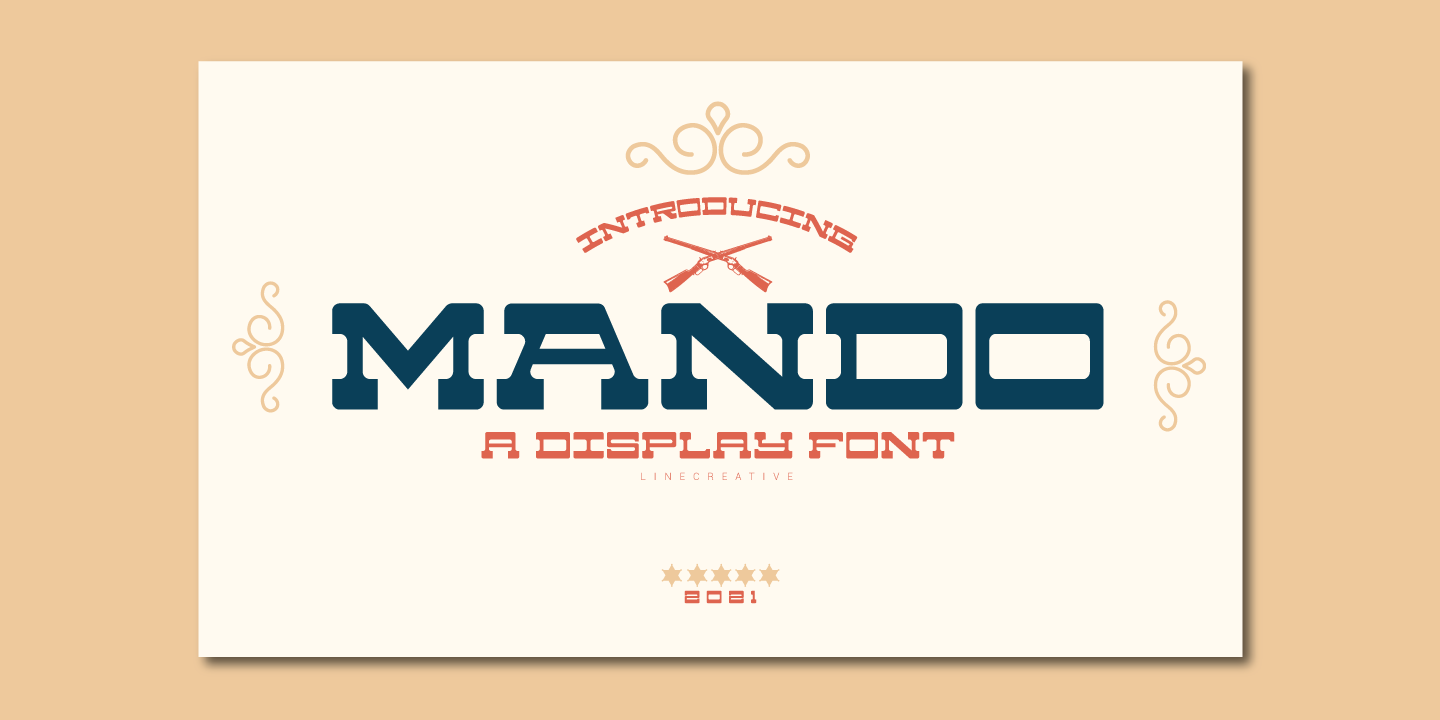
Mando Font is perfect for galactic entertainment branding, sci-fi gaming interfaces, space western movie titles, futuristic warrior merchandise, bounty hunter themed promotions, interstellar adventure marketing, mandalorian-inspired product packaging, cosmic battle game graphics, space opera storytelling materials, and epic sci-fi franchise communications.
What makes Mando Font so exciting is its extraordinary ability to capture the legendary warrior spirit and galactic frontier mystique through boldly armored letterforms that seem forged in the fires of distant star systems and tempered by the honor codes of ancient warrior clans who traverse the galaxy seeking justice and adventure. This font embodies the essence of spacefaring knights and nomadic warriors, featuring powerfully constructed characters that appear designed to withstand the harsh conditions of outer space battles while maintaining the distinctive cultural identity that defines the most respected warrior traditions. The armored letter shapes create an atmosphere of honor and legendary prowess, making every word feel like it carries the weight of galactic history and the authority of those who have earned their place among the galaxy's most feared and respected protectors.
The Mando Font family includes Light, Regular, Bold, Heavy, and Armored variations, along with galactic symbols and warrior decorative elements. Each style maintains the font's distinctive space warrior character while offering versatility for different sci-fi applications, from subtle galactic communication text to commanding battle cry headlines that announce the arrival of legendary bounty hunters and space-faring warriors.
This legendary typeface brings authentic space western aesthetics to contemporary design projects. The Mando Font Free Download provides designers with an exceptional tool to create memorable brand identities that communicate strength, honor, and galactic adventure. Whether you're developing sci-fi entertainment branding, designing space warrior gaming materials, or creating futuristic frontier communications, this font delivers unmatched intensity and cosmic authenticity.
The masterfully crafted letterforms in Mando Font feature angular armor plating and warrior-inspired structures that ensure maximum impact while expressing the disciplined code and professional expertise that separate legendary warriors from ordinary space travelers. Each character has been designed to maintain excellent readability while conveying the unwavering determination and tactical precision that define the galaxy's most elite protectors. The font's distinctive personality makes it ideal for applications requiring genuine warrior authority and space frontier credibility.
Entertainment industry professionals appreciate how Mando Font instantly establishes galactic credibility and warrior authenticity while appealing to audiences seeking epic sci-fi experiences that celebrate the timeless themes of honor, adventure, and the courage required to protect the innocent across the vast reaches of space. The comprehensive character set includes galactic symbols, warrior elements, space decorations, and extensive international language support, ensuring universal compatibility while maintaining its distinctive mandalorian-inspired identity. This makes it an invaluable resource for game developers, sci-fi publishers, entertainment companies, and any organization seeking typography that embodies the enduring appeal of warrior legends, galactic adventure, and the eternal human fascination with heroes who follow ancient codes of honor while navigating the infinite possibilities and dangers of the final frontier.